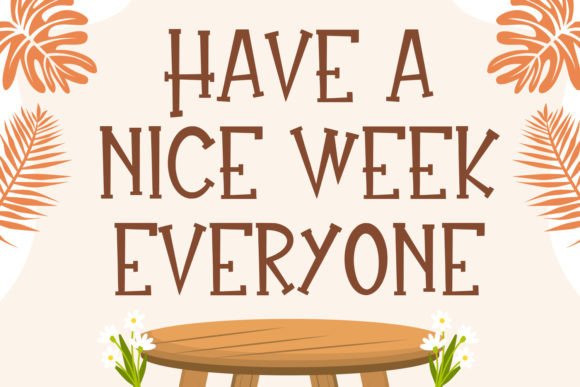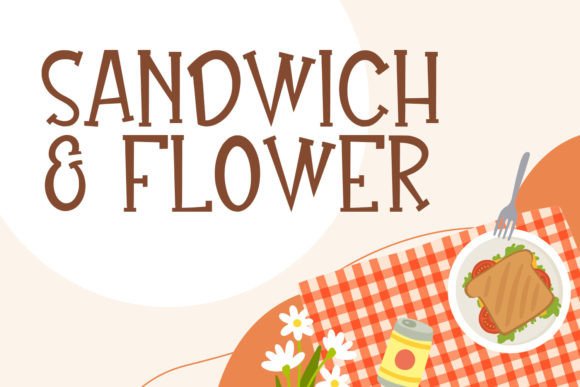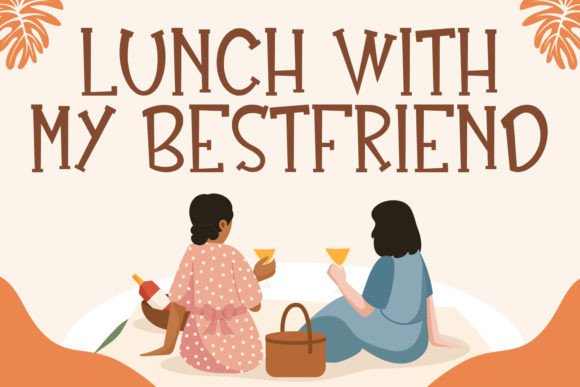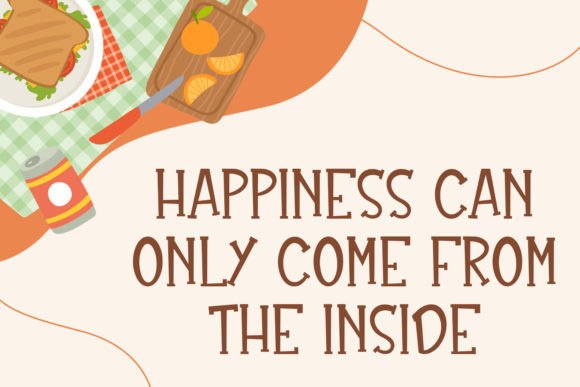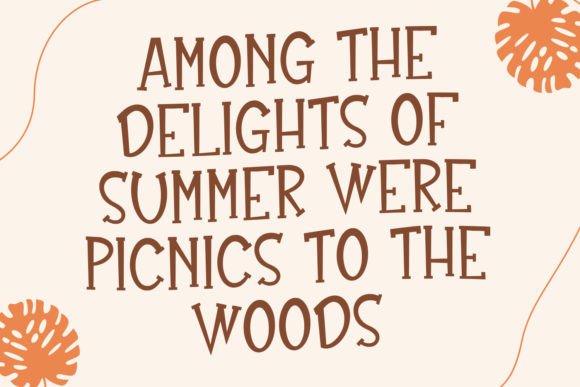
Amequin Font: Elevate Your Creativity with this Unique Display Font
Amequin is an incredibly unique display font that has been masterfully designed to become a true favorite among designers and crafters. With its distinctive style and versatility, this font has the potential to bring each of your creative ideas to the highest level. In this article, we’ll dive into the world of Amequin Font, exploring its features, benefits, and uses, as well as provide tips on how to make the most of this amazing font.
What Makes Amequin Font So Special?
Amequin Font is a one-of-a-kind display font that boasts a distinctive style that’s sure to turn heads. Its unique design elements, combined with its exceptional legibility, make it an ideal choice for a wide range of creative projects. Whether you’re working on a logo, branding materials, or marketing collateral, Amequin Font is sure to make a lasting impression.
Key Features of Amequin Font
- Unique Design: Amequin Font features a distinctive design that’s unlike any other font on the market. Its intricate details and elegant lines make it perfect for creating visually stunning text.
- High Legibility: Despite its ornate design, Amequin Font remains highly legible, even at smaller sizes. This makes it an excellent choice for body text, headlines, and titles.
- Versatility: Amequin Font is incredibly versatile, making it suitable for a wide range of creative projects, from logos and branding materials to marketing collateral and packaging.
Benefits of Using Amequin Font
So, why should you choose Amequin Font for your next creative project? Here are just a few benefits of using this amazing font:
- Adds Visual Interest: Amequin Font adds a touch of elegance and sophistication to any design, making it perfect for creating visually stunning text.
- Enhances Branding: With its unique design and high legibility, Amequin Font is an excellent choice for branding materials, helping to create a lasting impression on customers.
- Boosts Creativity: Amequin Font’s distinctive style is sure to inspire your creativity, helping you to think outside the box and come up with innovative design solutions.
Tips for Using Amequin Font
To get the most out of Amequin Font, here are a few tips to keep in mind:
- Use it Sparingly: Amequin Font is a bold and eye-catching font, so use it sparingly to avoid overwhelming your design.
- Experiment with Colors: Amequin Font looks amazing in a variety of colors, so don’t be afraid to experiment and find the perfect hue for your design.
- Pair it with Other Fonts: Amequin Font pairs well with a range of other fonts, so try combining it with different fonts to create a unique and visually appealing design.
Who Can Benefit from Amequin Font?
Amequin Font is an excellent choice for a wide range of designers and crafters, including:
- Graphic Designers: Amequin Font is perfect for graphic designers looking to add a touch of elegance and sophistication to their designs.
- Log Designers: With its unique design and high legibility, Amequin Font is an excellent choice for logo designers looking to create a lasting impression.
- Crafters: Amequin Font is also perfect for crafters, including paper crafters, scrapbookers, and card makers, who want to add a personal touch to their creations.
In conclusion, Amequin Font is an incredibly unique display font that’s sure to become a true favorite among designers and crafters. With its distinctive style, high legibility, and versatility, this font has the potential to bring each of your creative ideas to the highest level. Whether you’re working on a logo, branding materials, or marketing collateral, Amequin Font is an excellent choice. So why not give it a try and see the amazing results for yourself?